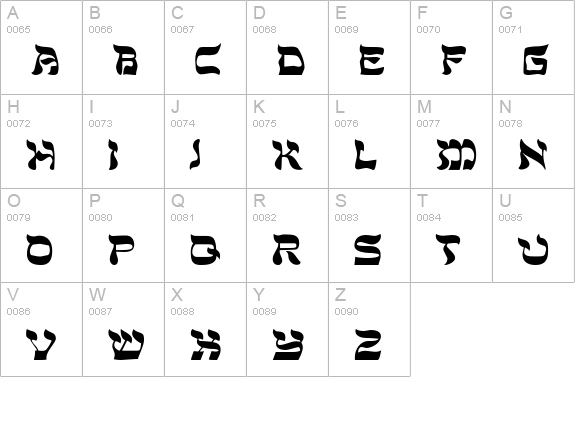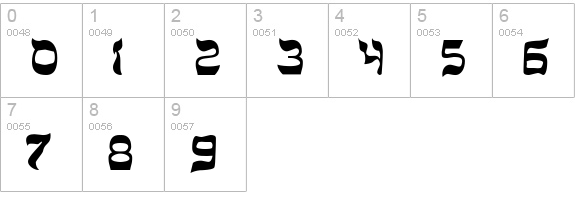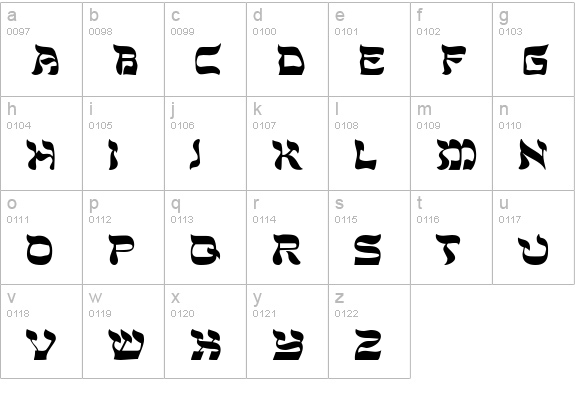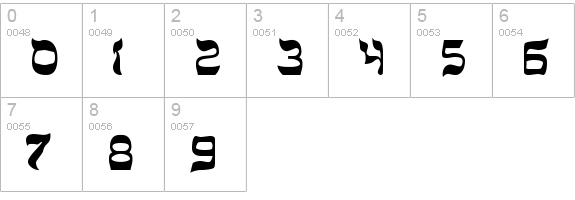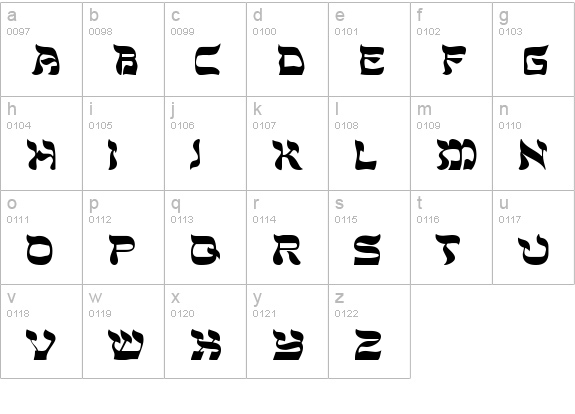
DS Sholom Medium Font Details
DS Sholom Medium is a balanced, medium-weight variant in the DS typeface family \xE2\x80\x94 well suited to sub-headlines, navigation, and balanced editorial work.
DS Sholom Medium font is a versatile and modern typeface that combines elegance with readability. Its sleek and sophisticated design makes it perfect for a wide range of projects, from branding to editorial design. The medium weight strikes the perfect balance between boldness and subtlety, making it ideal for both headlines and body text. What sets DS Sholom Medium font apart is that it is freely available to download at FontsMarket.com. This means you can easily access this high-quality font without any cost, allowing you to elevate your designs without breaking the bank. Whether you're a professional designer or a hobbyist, DS Sholom Medium font offers a stylish and professional option for all your typography needs.